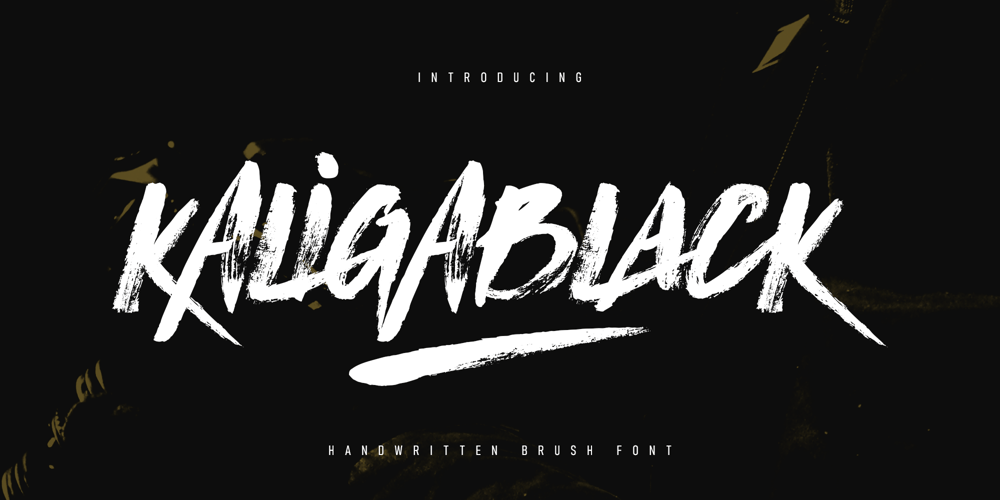
Kaliga Black Font Family was designed by Alam Syahril and published by Realtype. Kaliga Black contains 1 styles and family package options. comes with a very defiant style and is ready to highlight the characteristics of the original brush font.Kaliga Black is a rough textured brush font, made from natural paint brushes giving it a natural look.Try Kaliga Black, and let its natural brush make you happy enhancing your design creativity! You can use this font very easily.Includes Multilingual SupportFor folks who do not have opentype capable software : There are additional ways to access alternates/swashes, using Character Map (Windows), Nexus Font (Windows), Font Book (Mac) or a software program such as PopChar (for Windows and Mac).Thank you for checking! I really hope you love it.